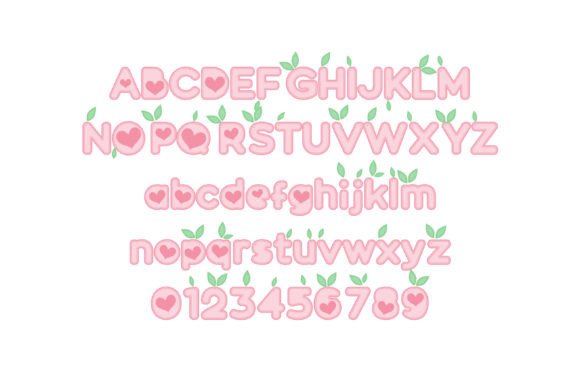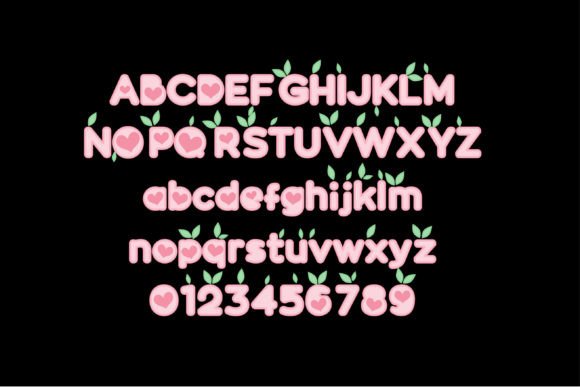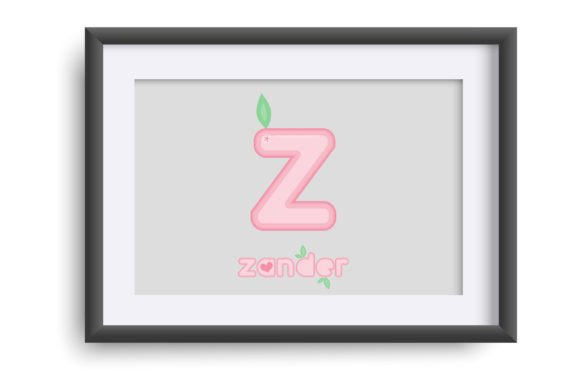
Introduction to Loveberry Font
Loveberry is a colorful and lovely font that will brighten up any design.
This font boasts a harmonious blend of soft pastel hues, creating a calming and charming effect Ideal for invitations, greeting cards, and branding, this font is sure to add a touch of sweetness and elegance to your work.
Key Features of Loveberry Font
Why Choose Loveberry Font?
Loveberry Font offers exceptional quality and versatility, making it a valuable addition to your design toolkit. Whether you’re creating for personal projects or commercial use, Loveberry Font delivers professional results.